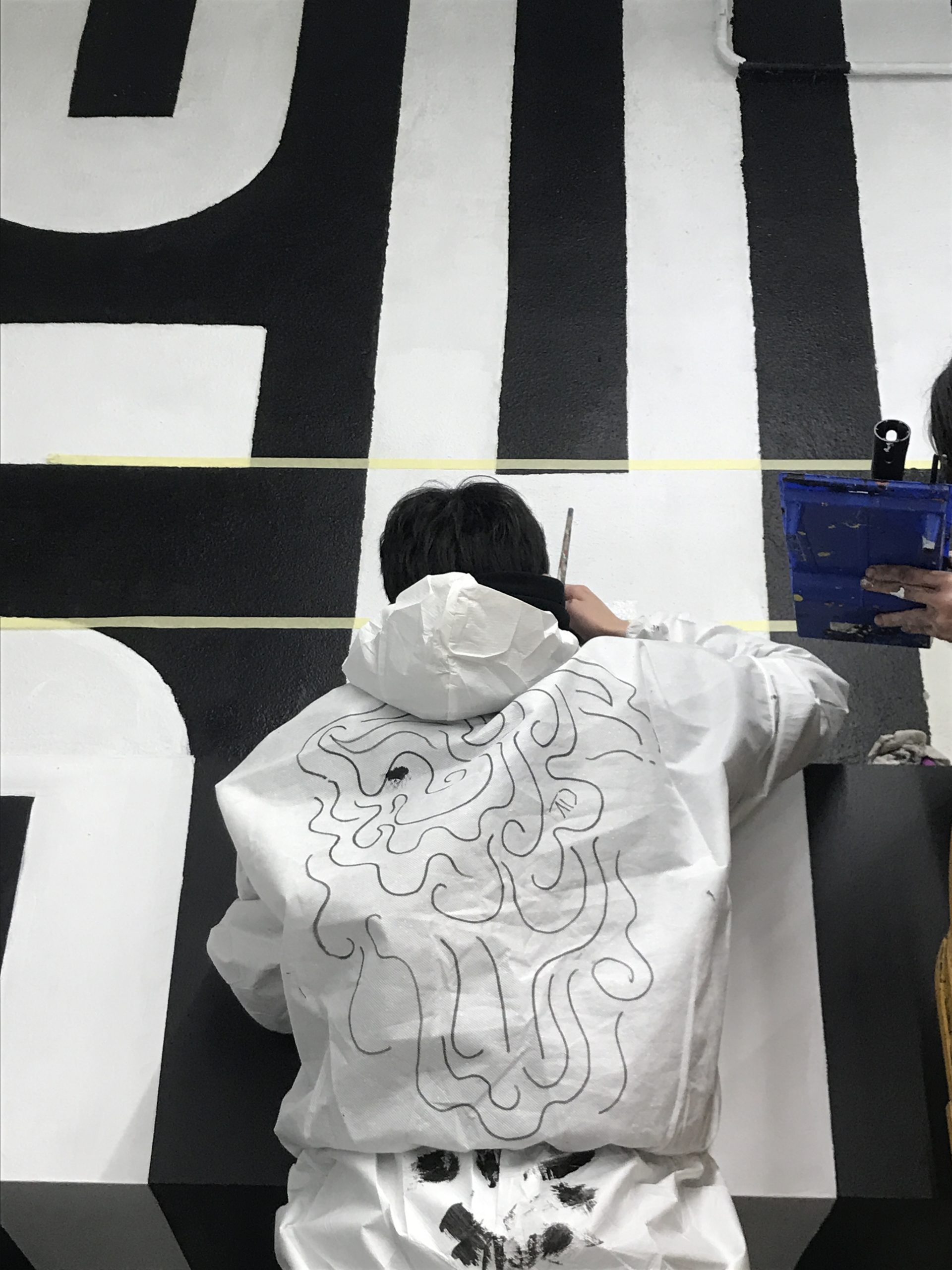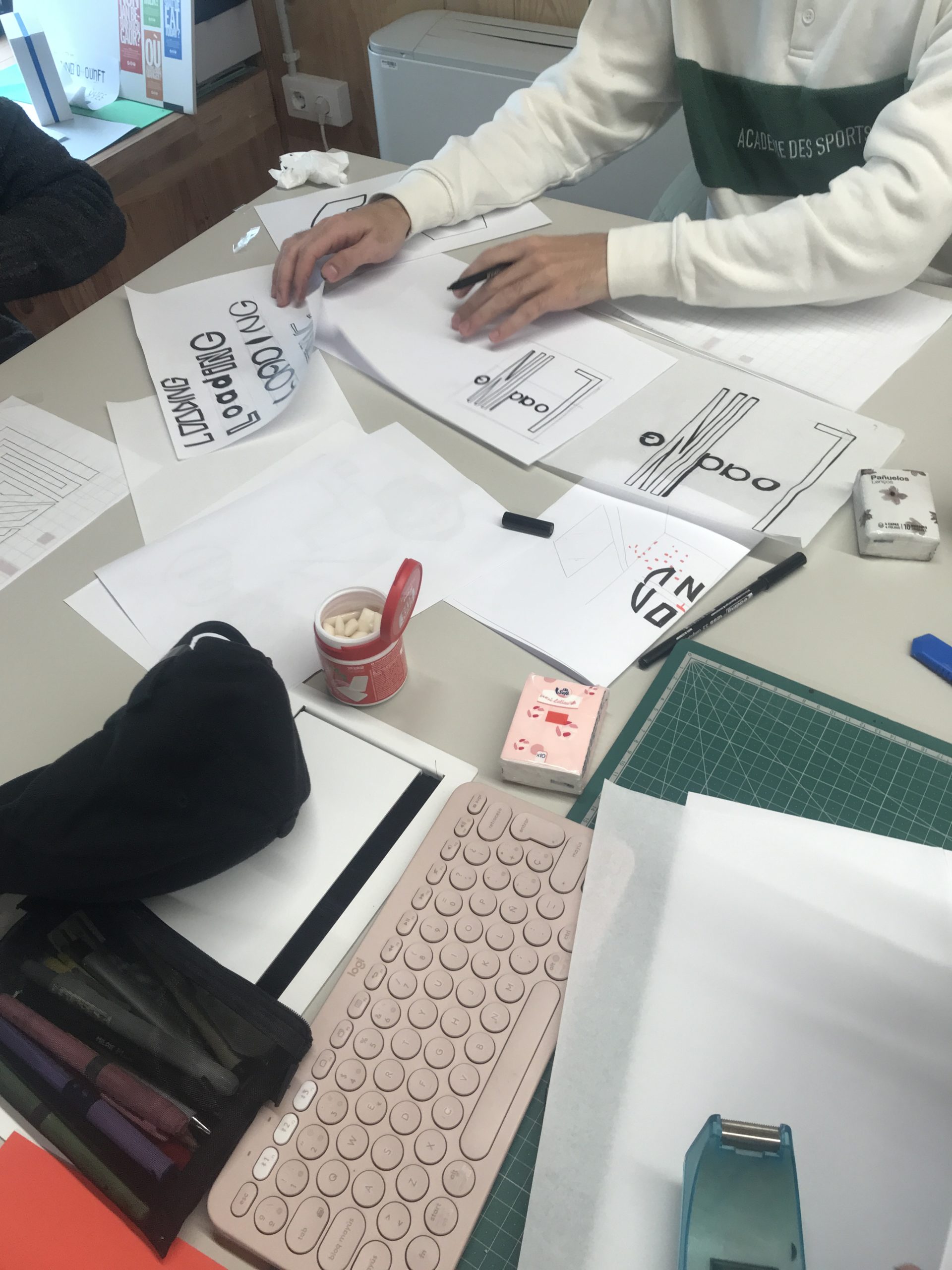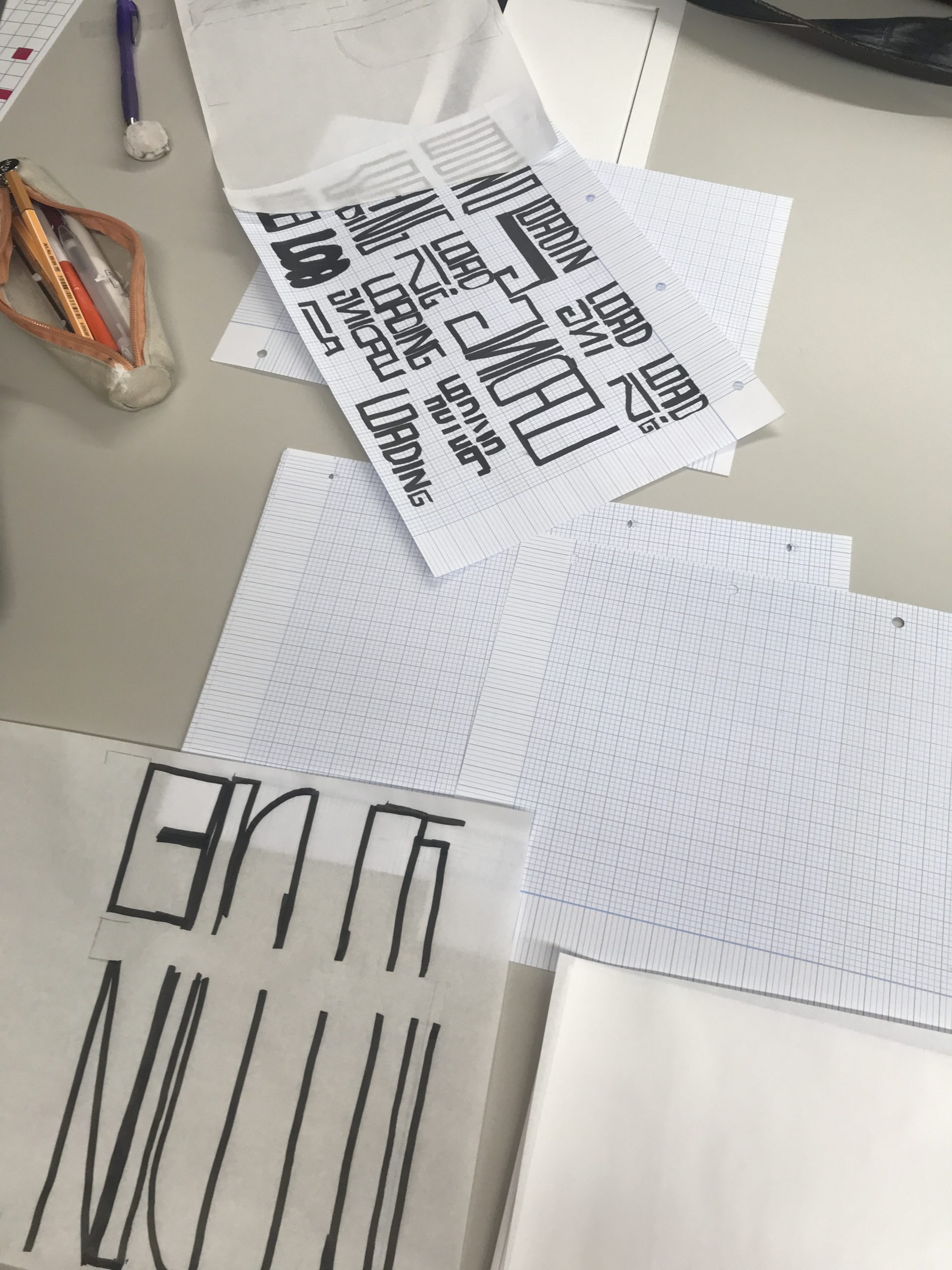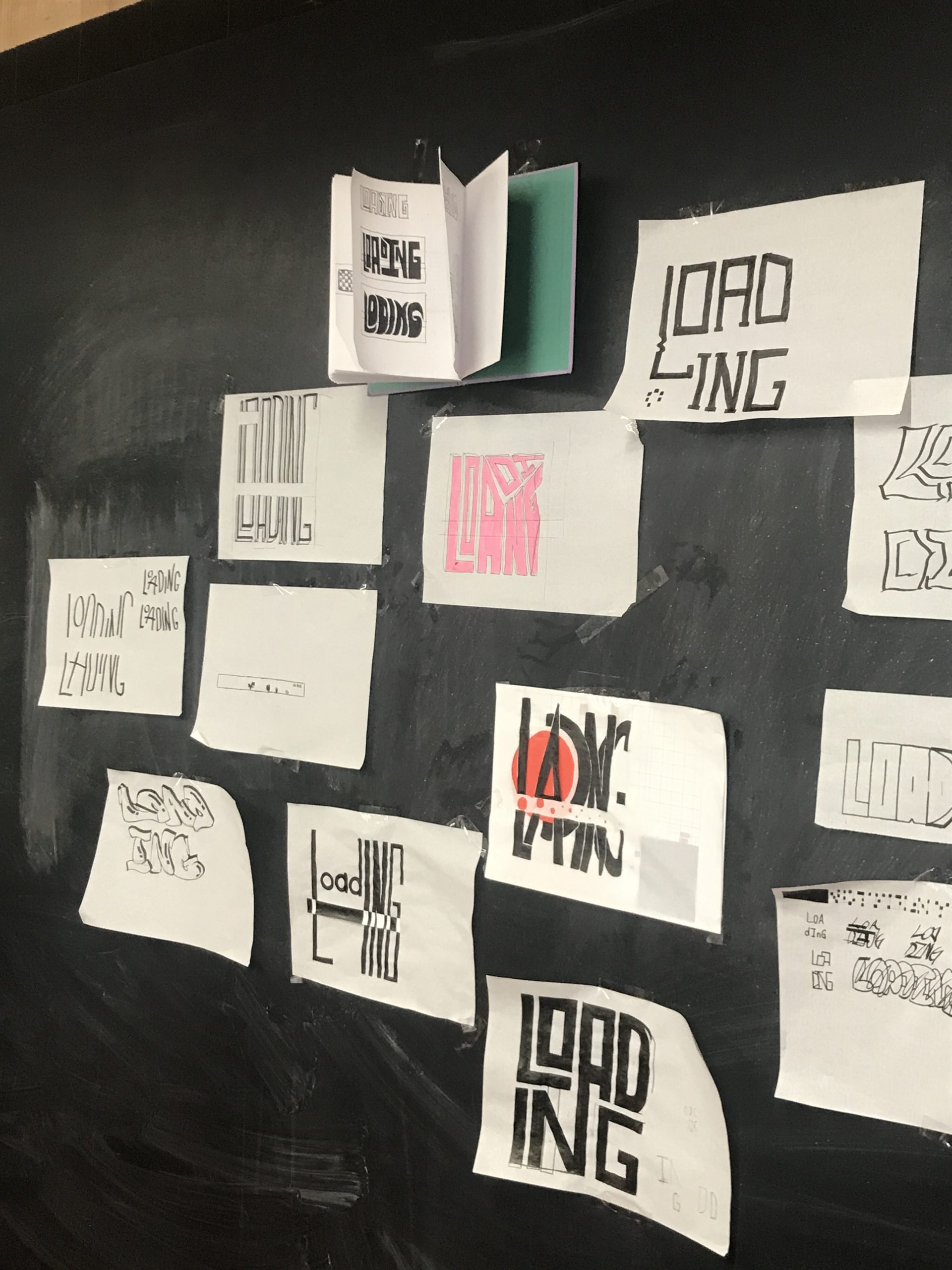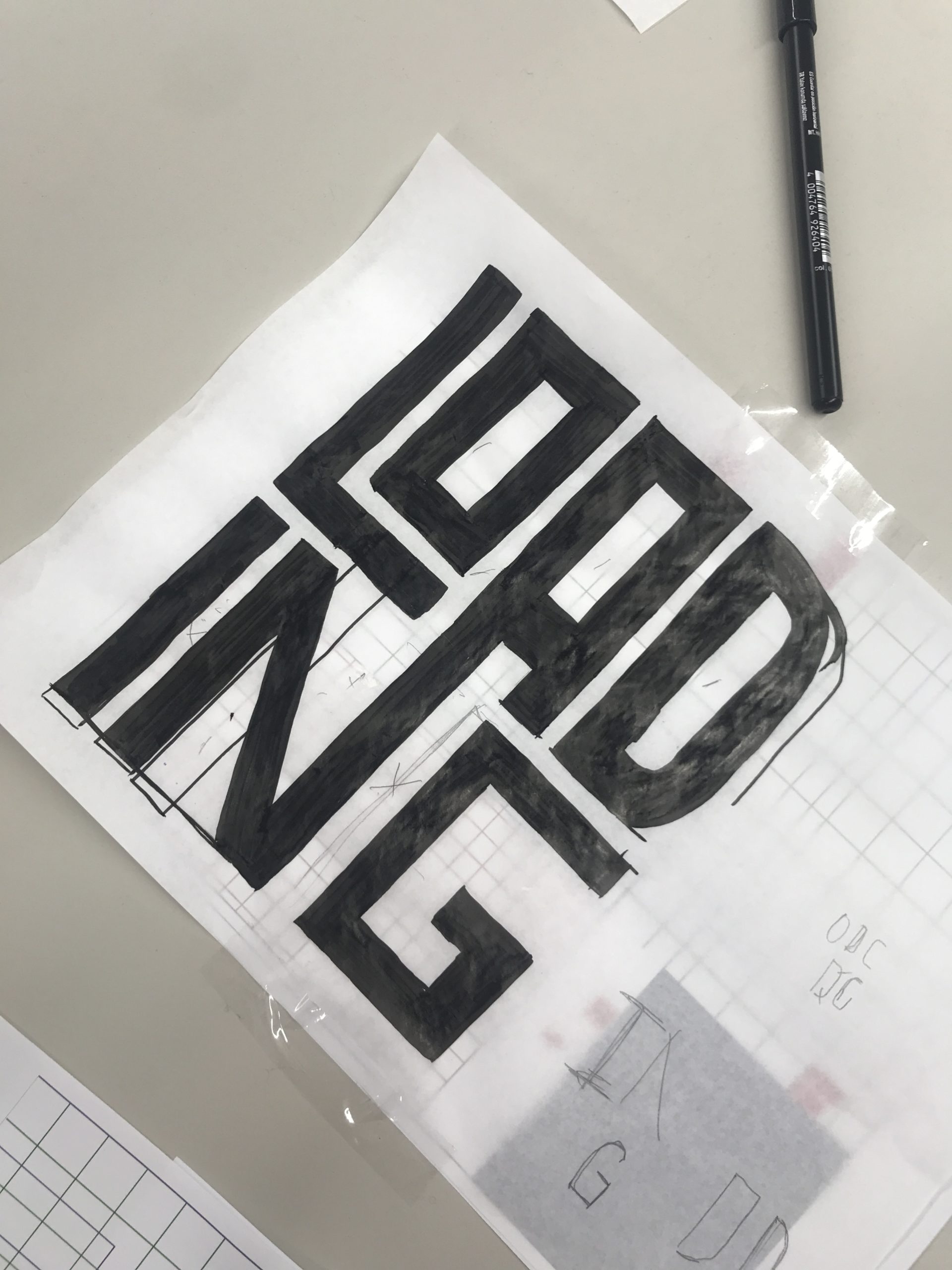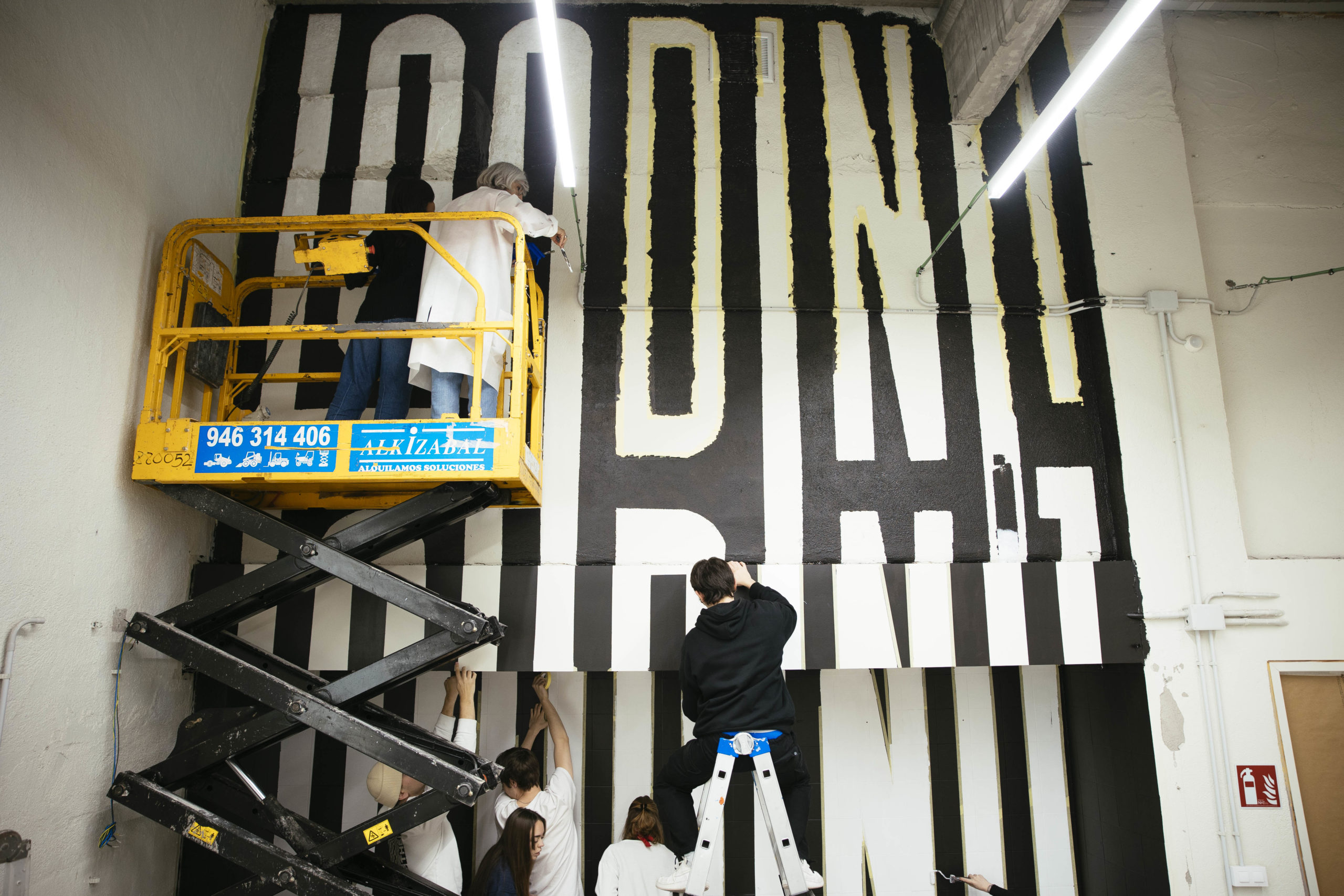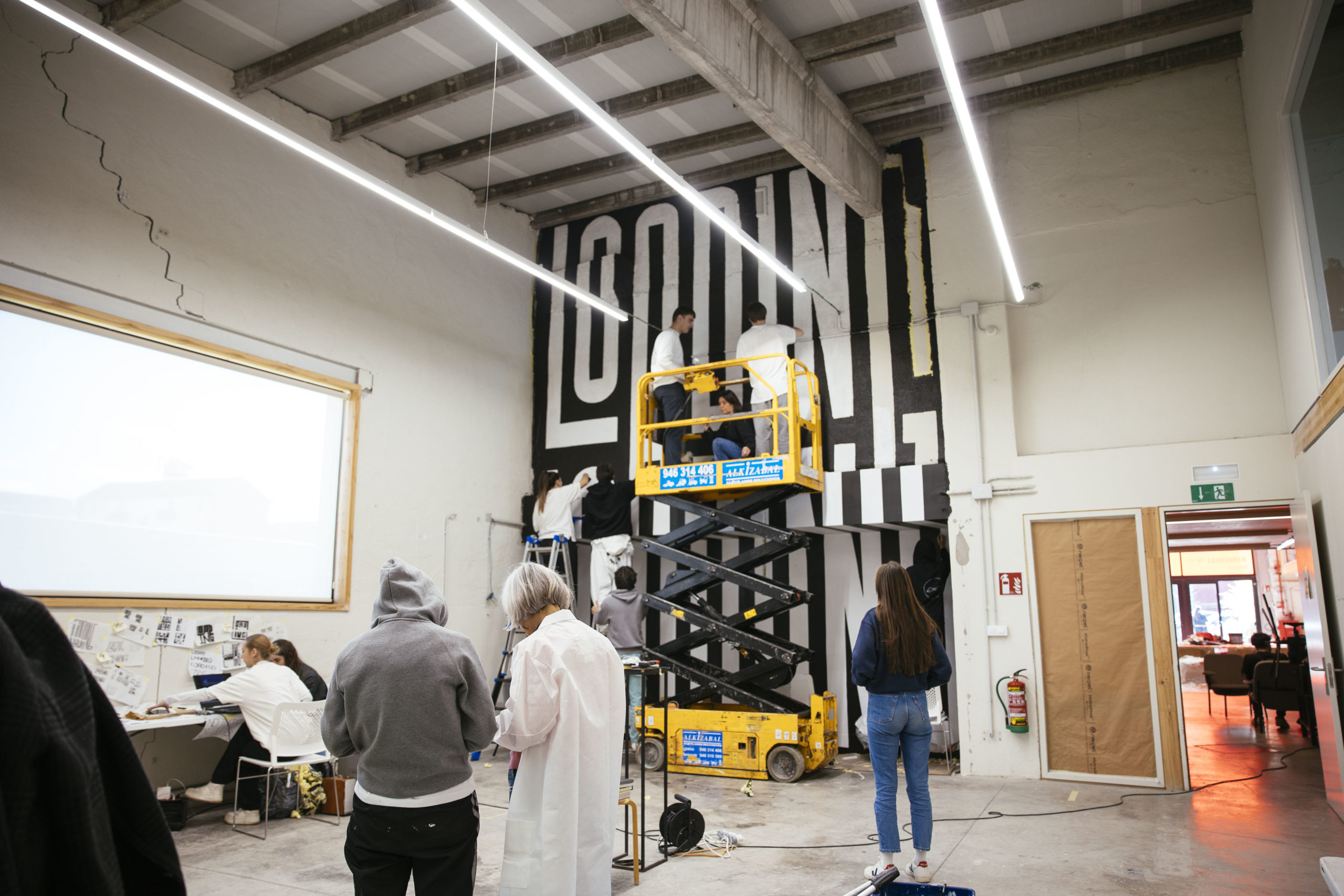
Mural painting workshop at IED Kunsthal Bilbao
At the beginning of the year, Laura carried out her first mural typography workshop in the week of multi/interdisciplinary workshops at IED Kunsthal in Bilbao, together with Ruth Juan and facilitated by Eider Corral.
The purpose of the workshop “Gigatype” was to unite typography and mural painting, exploring the capacity of messages for urban transformation, based on the students’ personal search and instincts. We gathered 17 students from different disciplines and courses, and it was a unique experience, for many reasons but mainly for the experience and result of the collective work.
The proposal consisted of dividing the 20-hour workshop into 3 phases:
1. Conceptualisation and typography
In the first conceptual part, we searched for a word or short phrase representing the transformation, personal and of the school itself, located in Zorrotzaurre, a part of Bilbao that is changing daily.
2. Strategy and execution
In the second part, we defined a typographic style that would serve the purpose, taking into account the multiple conditioning factors: time, dimensions, space and technique -elements that undoubtedly mark the process that results in a final result that is not 100% predefined. In the second part, Ruth Juan masterfully directed the transfer and painting of the word on a 4.47 x 6 m high wall, where we all participated 🙂
3. Documentation of the process
And finally, in the third part, we sought to relate and document the process from beginning to end, based on a thread freely chosen by the students. The document is what remains as a testimony of their work, creativity and passion.
Goals
– To create a typographic mural.
– Define a unique and collective message.
– Define the typographic style appropriate to the message, available space and technique.
– The final result arises from the process and the balance between concept, creativity, time and technique.
Premises or conditioning factors
– 4.47 x 6 m high wall.
– Collective message reduced to a maximum of 3 words
– 17 students who will share tasks
– Time: 8 h for conceptualisation + 12 h for painting
After two days of work, the result of the first part was:
Word
LOADING
Typographic style
– Uppercase or tall letters for optimal legibility.
– “Sans Serif”style to let the verbal message take centre stage.
– Drawn ad hoc in ultra-condensed proportion adapted to occupy all the space.
– Black background and white letters, to gain impact in space.
– Reinforcement of the meaning by the repetition of the word and the elasticity of three letters occupying the entire height.
Technique
– Tools: Rollers and brushes
– Materials: acrylic paint
“Gigatype” a typographic mural workshop by Laura Meseguer and Ruth Juan (a.k.a. Junita Makina)
IED-Kunsthal. Bilbao (Spain) / Workshop week 2023 / January 29 to February 3, 2023
Instructors: Laura Meseguer and Ruth Juan